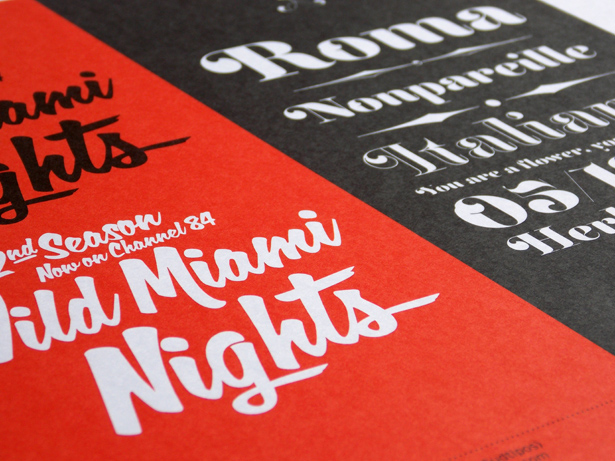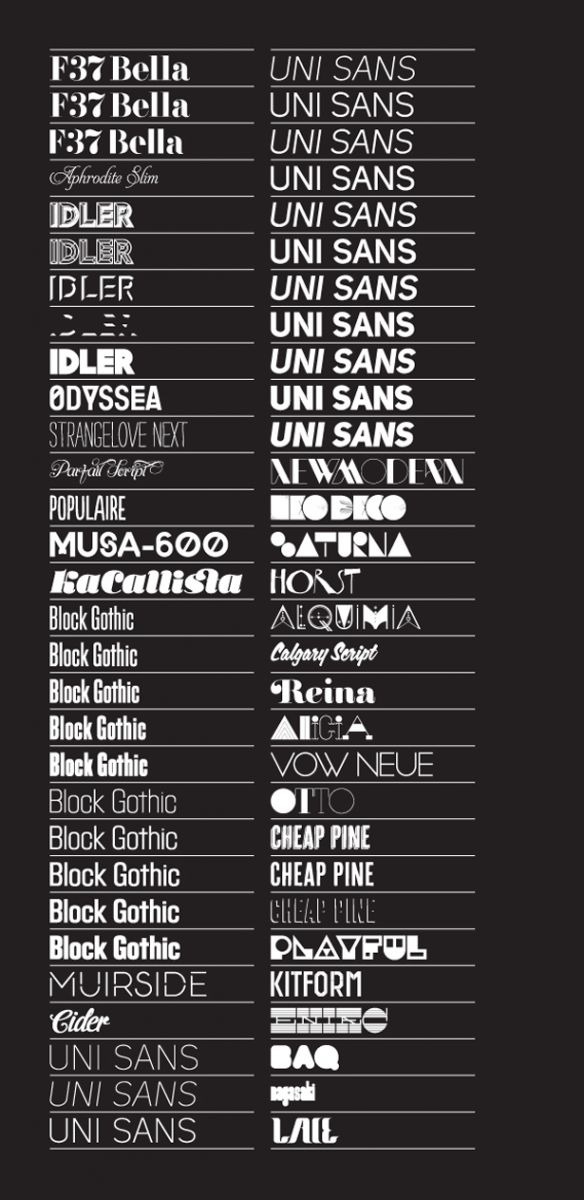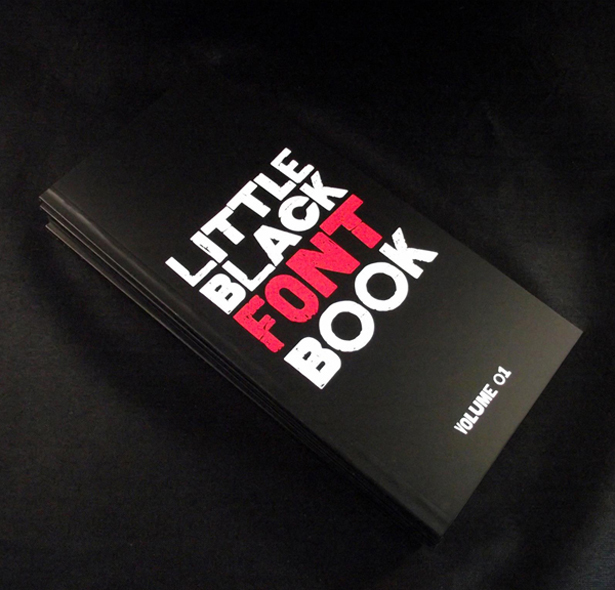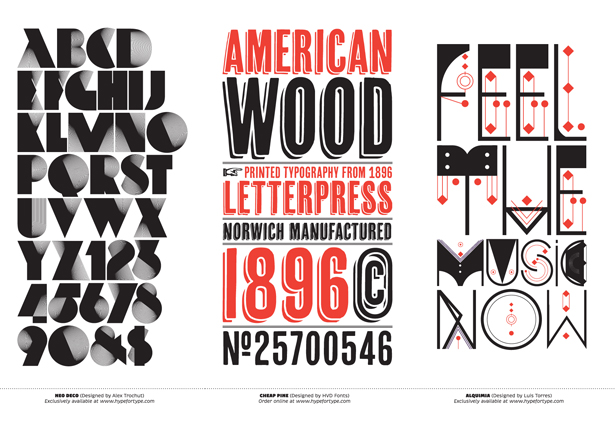
When you need the right font...
Could this bijou book of type be the hottest design-related accessory released this summer?
When you need the company of a good typeface, designer and typographer Alex Haigh has the solution. His Little Black Font Book is affordable, small enough to fit in your pocket, nicely designed and printed, and has 30 pages of typographic delight inside. Released last month at £4.99, it has risen to number one position on the Typography chart in Amazon.co.uk's Graphic Arts section.
"Little Black Font Book is a modern take on a traditional type catalogue," says Haigh. "It's a typographic look book that aims to inspire designers during those desperate times of creative block."
Highlights include fonts sold by Haigh's online foundry, HypeForType, such as Otto by Non-Format, Neo Deco by Alex Trochut, Anthony Burrill's typeface Kit Form, and F37 Bella designed by Rick Banks. While other type catalogues present type black on white, showing the alphabet and numerals along with 'The quick brown fox...', Haigh wanted something more creative and inspiring. So he put together copy and designs that say a little more about the look and feel of each typeface.
"Although I get to design occasionally whilst running HypeForType, I must admit I miss it massively. I'm a designer at heart and that will never leave so this was a great chance for me to do that thing I passionately love doing," he says.
Aside from the perfect bound spine, uncoated stock with an extra flourish of laminate on the cover, the most striking thing about the book is its size. It's DL format, which means it is roughly the size of a business envelope. "Two things came into my head when I made the decision about the size of the book," continues Haigh. "The first was the fact that when you're looking for a font, browsing black type on a white background is pretty uninspiring. The second was simply to get something on a designer's desk, period. So those two ideas in themselves seemed to gel perfectly. The book is DL size which means it fits beautifully in some black envelopes we had made up, doesn't cost a fortune to send, and it also fits in your handbag, your back pocket, your desk drawer, and on your desk."